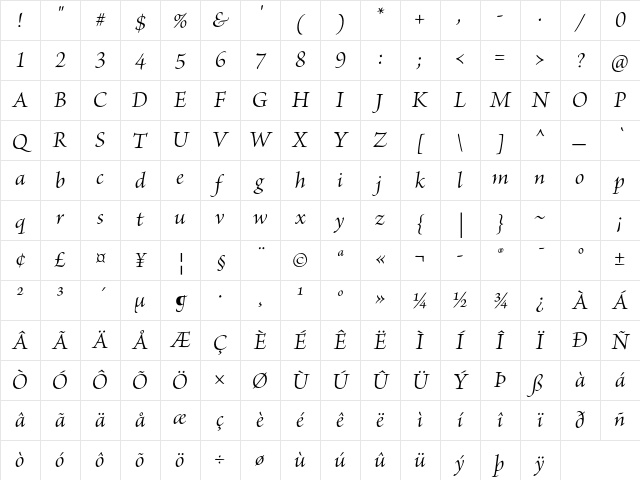
Brioso Pro Italic Subhead
Style: Italic Subhead
Complete Brioso Pro Italic Subhead glyph index. Displaying only characters natively supported by Brioso Pro Italic Subhead font.
Design Context for Brioso Pro
Brioso Pro is a composed and adaptable typeface that performs quietly and consistently across a wide range of design contexts. The slanted form adds forward momentum and visual energy.
Pro Tip: Use Brioso Pro for emphasis, pull quotes, and subheadings where its slanted energy can add rhythm to the layout.